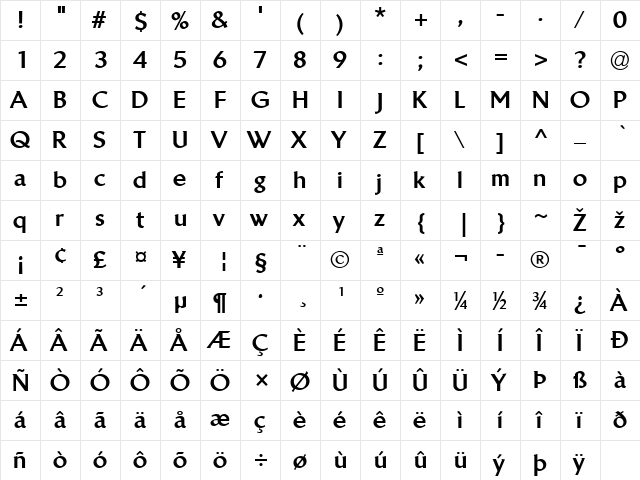
LTBrewery Regular Bold
| Foundry | Linotype Library GmbH |
Design Context for LTBrewery Regular Typeface
LTBrewery Regular offers clean, dependable letterforms without strong stylistic allegiance, making it a practical choice for designers who need flexibility. Its bold stroke weight gives it real presence on the page.